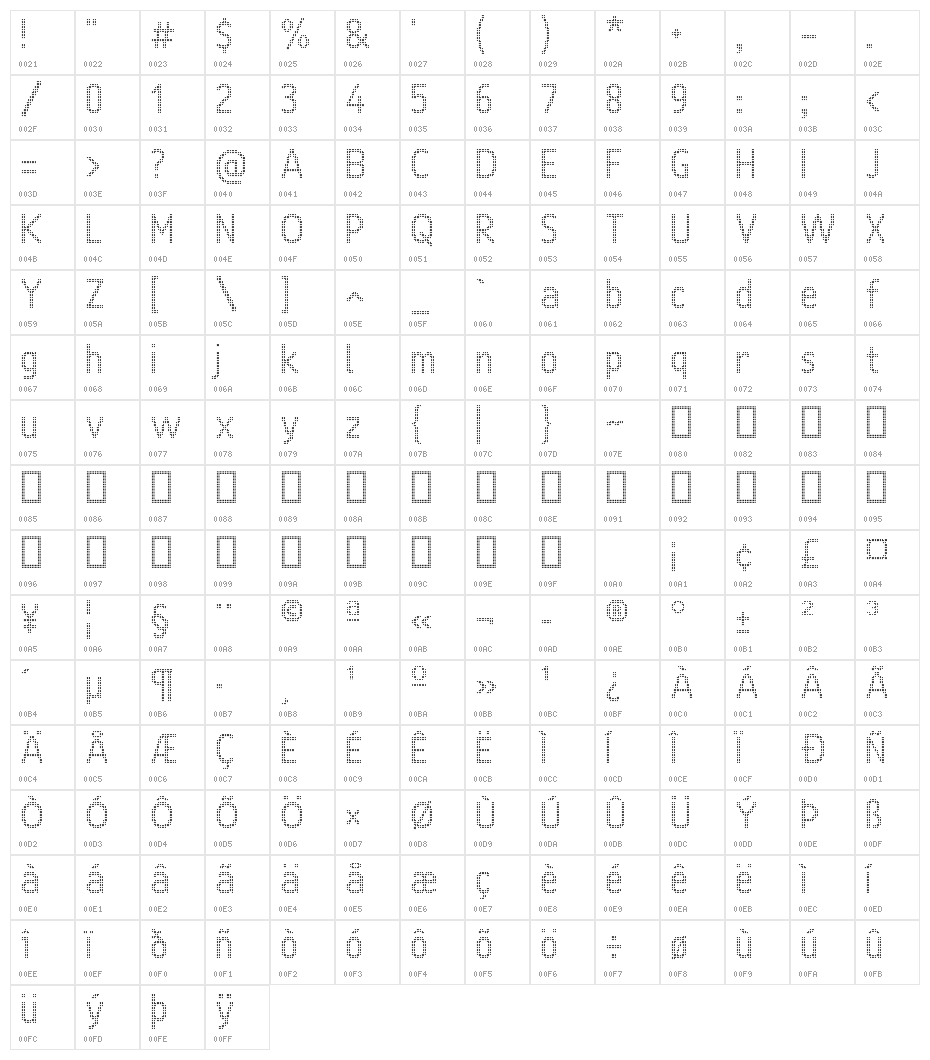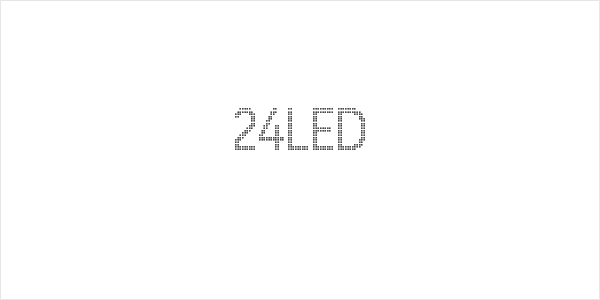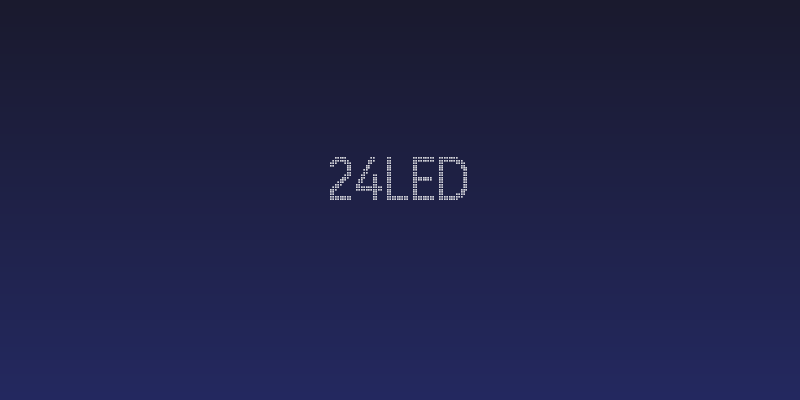
24LED Font
24LED Description
This font features a unique dot matrix style, reminiscent of LED displays. Each character is composed of a grid of dots, creating a digital and modern aesthetic. The uppercase and lowercase letters, numbers, and special characters maintain a consistent dot pattern, ensuring readability while offering a distinct visual appeal. The uniformity of the dots gives it a structured and geometric look, making it suitable for digital-themed projects. The spacing between characters is normal, allowing for clear legibility. This font is ideal for projects that require a futuristic or tech-inspired design.
| Use Case | Headlines, Logos, Digital displays |
| Proposed Projects | Ideal for digital displays, tech-themed posters, electronic device interfaces, and futuristic branding. |